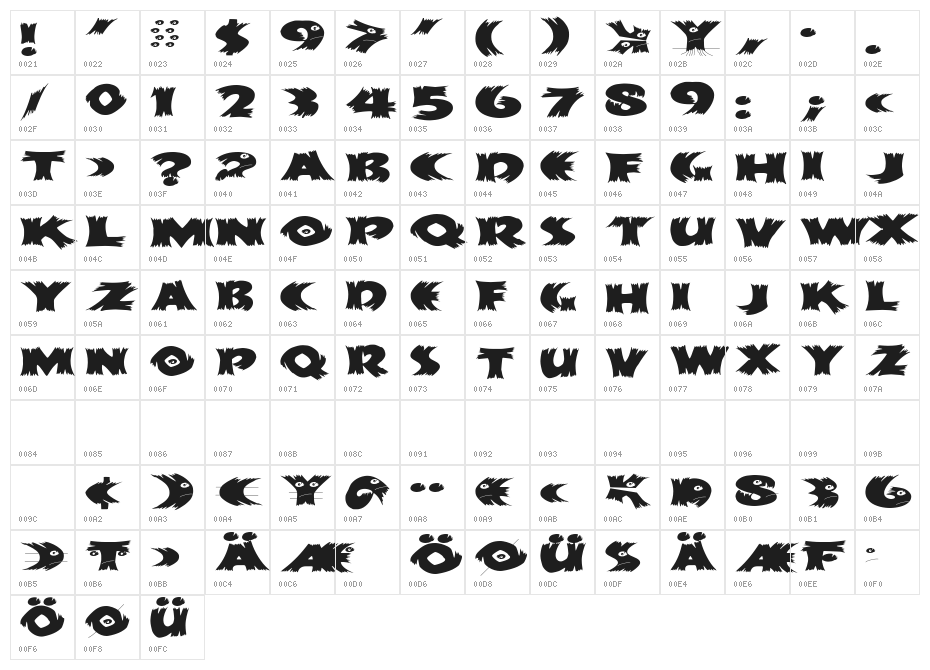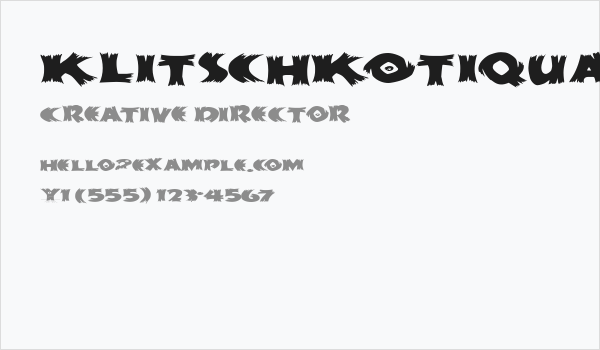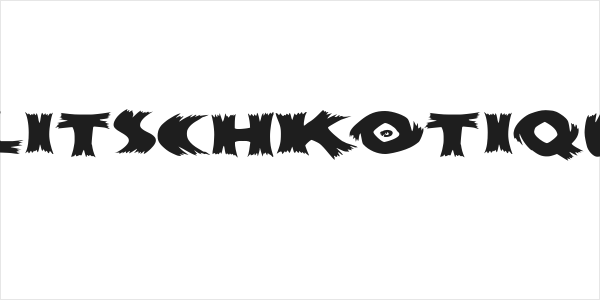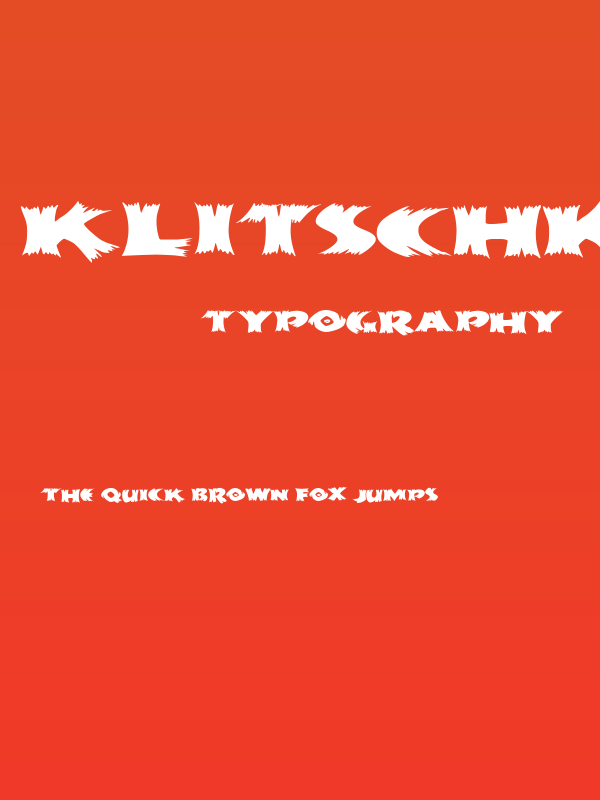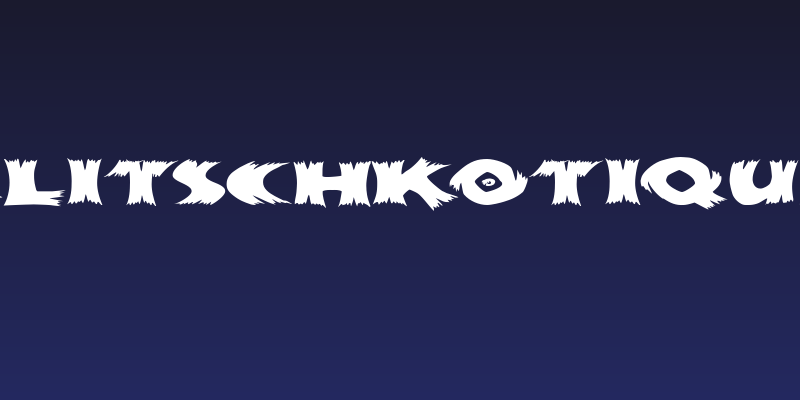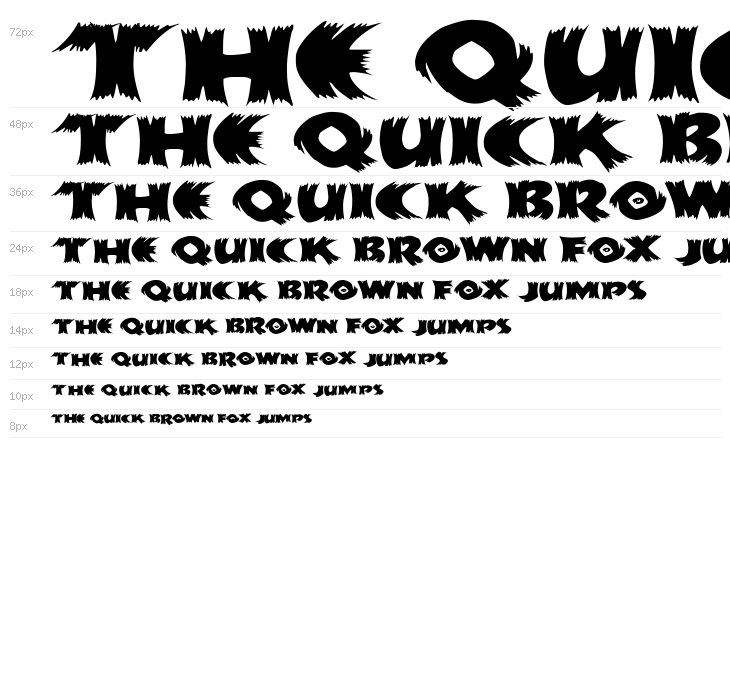
KlitschKOtiqua Font
KlitschKOtiqua Description
This font features a bold and edgy design with sharp, jagged edges that give it a dynamic and aggressive appearance. The characters are heavily stylized, resembling torn or shredded paper, which adds a sense of movement and energy. The uppercase and lowercase letters maintain a consistent style, with each character exhibiting unique cuts and angles that contribute to the overall chaotic aesthetic. The numbers and special characters follow the same design principles, ensuring uniformity across the font. This distinctive style makes it ideal for projects that require a bold statement or a sense of urgency.
Proposed ProjectsIdeal for music album covers, extreme sports branding, horror movie posters, and edgy graphic designs.